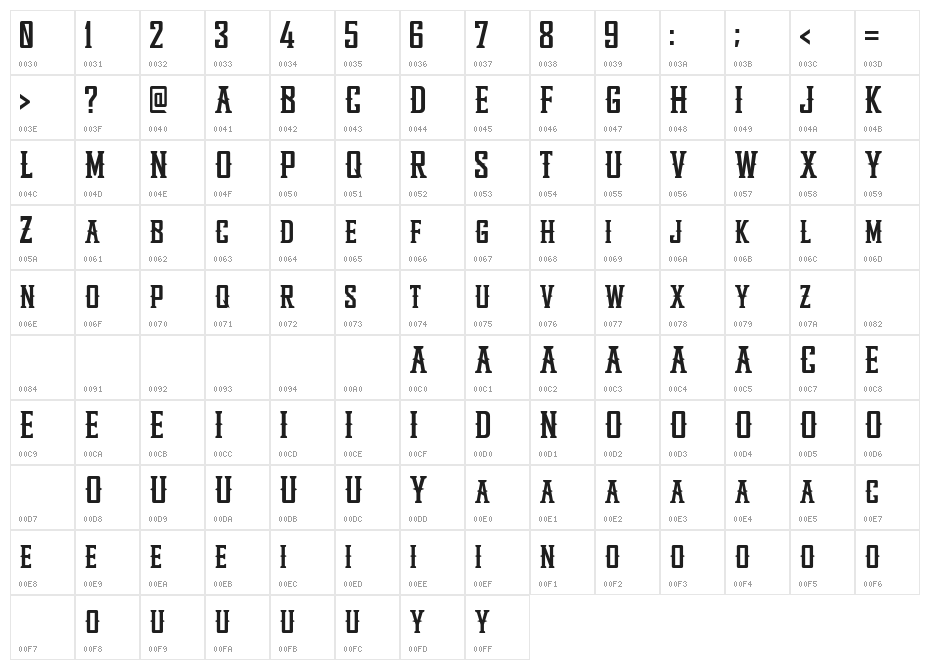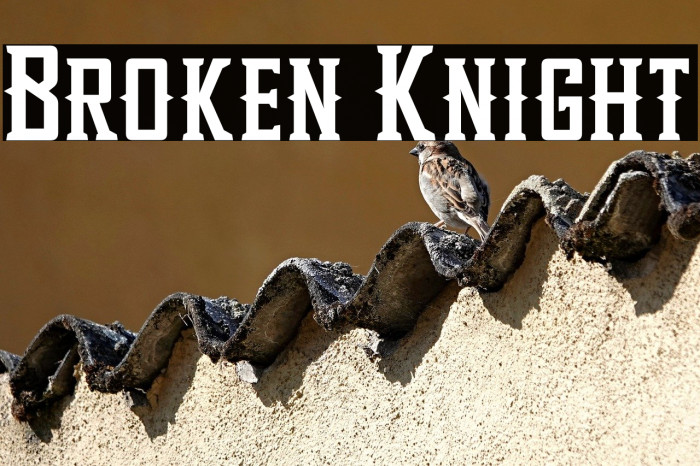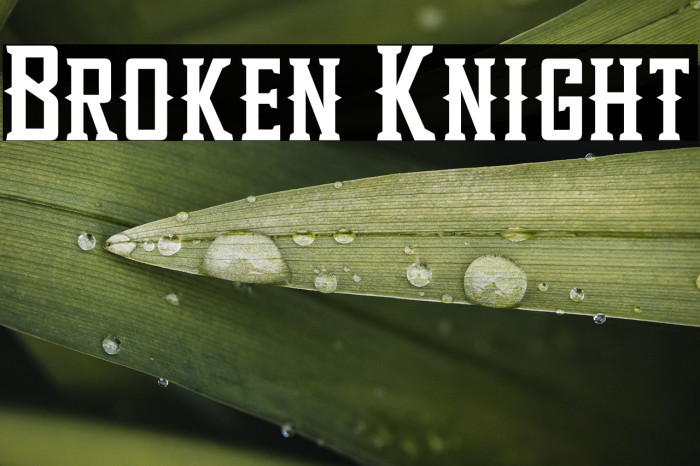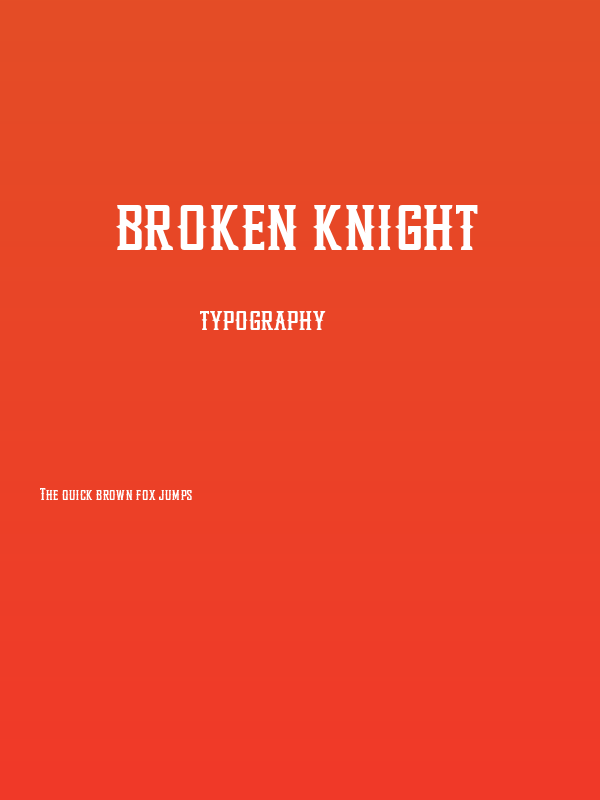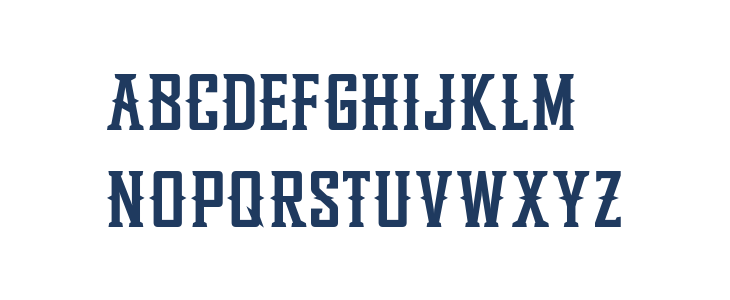
Broken Knight Font
Broken Knight Description
This font features a bold and striking design with sharp, angular serifs and a strong presence. The characters are tall and narrow, giving it a condensed appearance while maintaining a sense of elegance and authority. The uppercase letters are particularly prominent, with a uniform height that creates a cohesive look. The numbers are equally bold, matching the style of the letters, and the overall design is reminiscent of medieval or gothic influences. This font is ideal for making a statement, with its high contrast and distinctive style.
| Overall Style | Gothic, Decorative |
| Proposed Projects | Ideal for branding, posters, book covers, and any project requiring a bold, medieval-inspired aesthetic. |